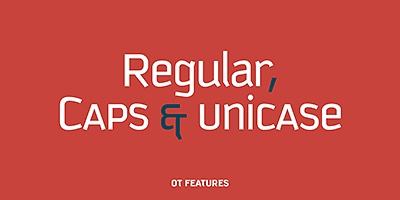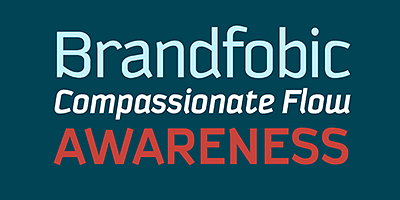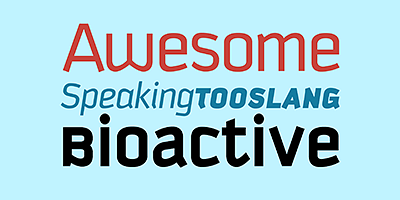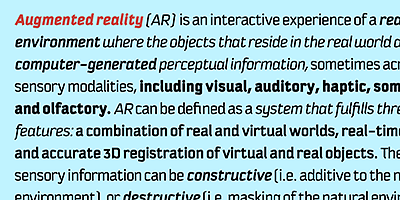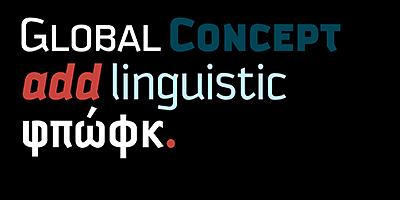
Kautiva is a comprehensive modern sans serif family that includes true italics, small caps, and unicase variations. Kautiva was developed to be efficient in both text and display environments. Kautiva serves as a refreshing middle ground between serious geometric and overly humanistic design. This gives it a balance, allowing significantly more flexibility than is normally expected from a sans serif typeface. Versatile in its functionality, Kautiva is also extensive in its features. The OpenType format Kautiva Pro family is available for layout architects who want to take advantage of the numerous features of the format: from true small caps to a variety of ligatures and stylistic alternates, through proportional and tabular figures and complete support for a multitude of Latin-based languages, as well as Cyrillic and Greek scripts.